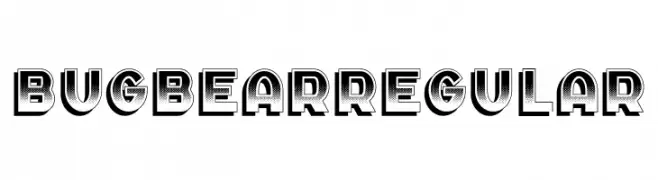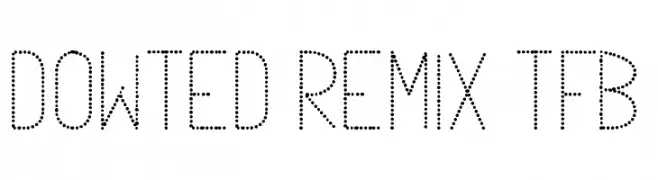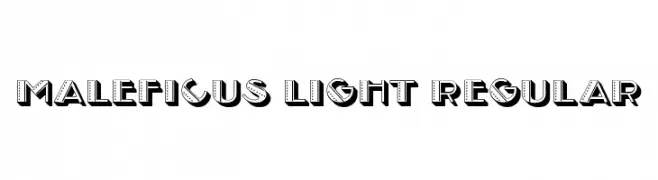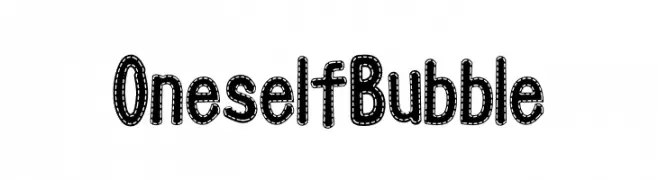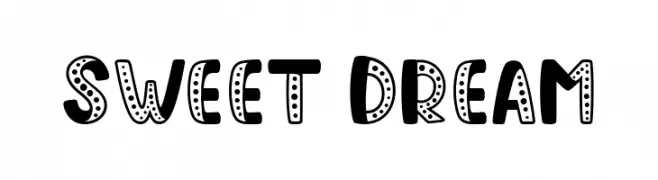
A playful 3D perspective font with dotted outlines and bold geometric shapes.
A modern, dotted font with a geometric and digital style.
A modern, dotted font with a playful and unique style.
A bold, decorative font with a 3D effect and dotted patterns, perfect for striking headlines.
A bold, futuristic font with a 3D dotted pattern.
A playful, bubble-like font with dotted outlines and rounded characters.
A bold, decorative font with a 3D effect and dotted texture.
A bold, decorative font with a dotted marquee style, perfect for festive designs.
A playful, bold font with dotted accents inside each character.
A bold, decorative font with star patterns and dotted textures.